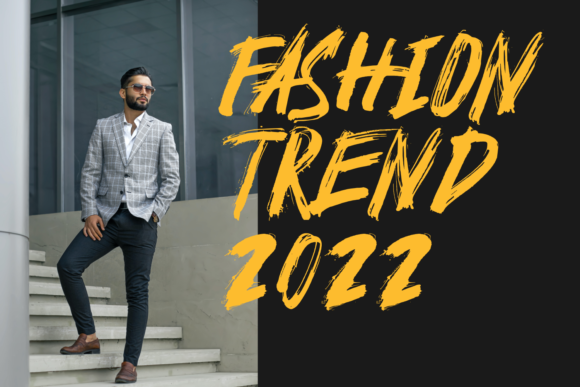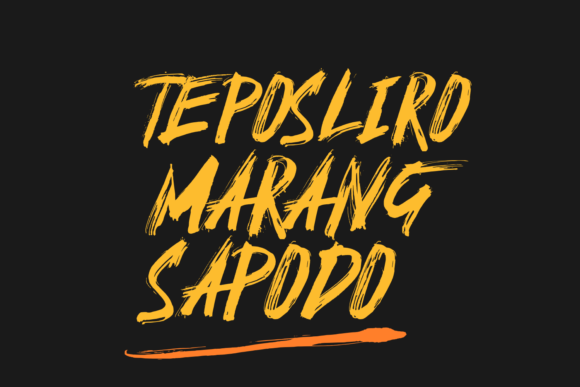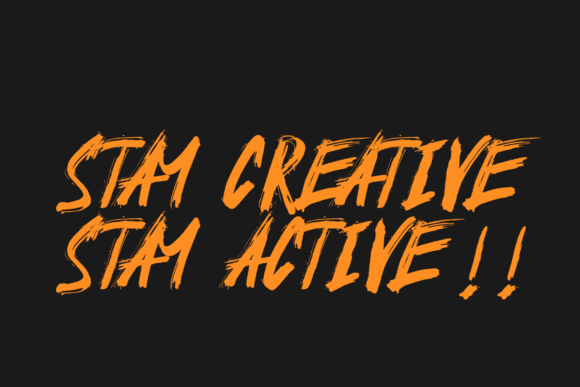
About Tourgate Font
Introducing a versatile and captivating font that is designed to elevate your creative projects – a font model that seamlessly combines functionality with artistic flair. This font is not merely a typographic element; it is a dynamic tool suitable for a myriad of applications, offering a harmonious blend of form and function. Whether you are embarking on product branding, logo creation, book titles, or even designing apparel such as t-shirts and sportswear, this font is tailored to meet your diverse needs.
One of the key strengths of this font lies in its adaptability for product branding. Its distinctive and well-crafted characters make a lasting impression, ensuring that your brand stands out with a unique and memorable identity. The font’s versatility enables it to convey the essence of your product, resonating with your target audience and leaving a lasting imprint in their minds.
Logo branding is another arena where this font excels. Its aesthetic appeal and carefully curated design elements contribute to creating logos that are not only visually pleasing but also reflective of your brand’s personality. The font’s ability to seamlessly integrate with various design elements ensures a cohesive and impactful representation of your brand identity.
For book titles, the font’s readability and artistic nuances make it a compelling choice. It strikes a balance between elegance and clarity, enhancing the visual appeal of book covers and titles. Whether your book is in print or digital format, this font adds a touch of sophistication to the overall design.
When it comes to apparel design, particularly on t-shirts and sportswear, this font model offers a contemporary and dynamic aesthetic. Its PUA encoding further enhances your creative freedom, allowing easy access to a plethora of amazing glyphs and ligatures. This feature empowers you to experiment with different styles and create designs that resonate with your target audience.
Beyond these applications, the font is equally well-suited for advertisements, clothing tags, and a host of other design projects. Its adaptability, coupled with the convenience of PUA encoding, ensures a seamless design process, providing you with the tools to unleash your creativity effortlessly.
In essence, this font model is not just a typeface; it is a versatile and indispensable companion for your creative journey, promising to enhance the visual impact of your projects across a spectrum of applications.